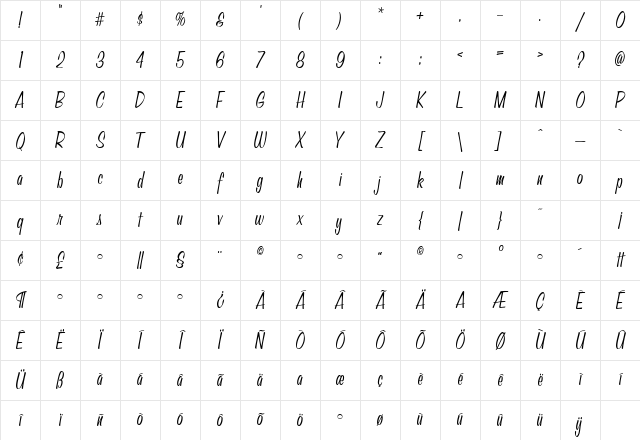
TikiHoliday Regular
Design Context for TikiHoliday
TikiHoliday is a composed and adaptable typeface that performs quietly and consistently across a wide range of design contexts.